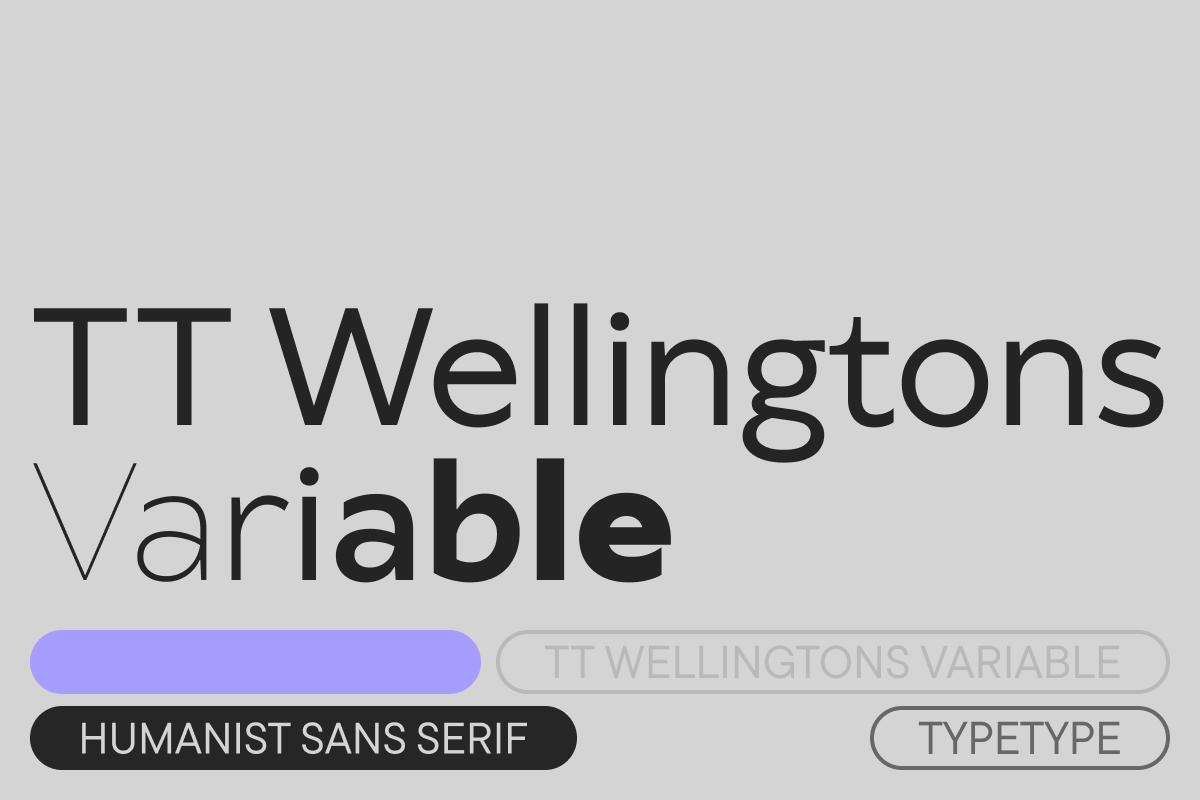
TT Wellingtons Variable
TT Wellingtons is a Humanist sans serif with forms closely connected to the movement of the broad nib. Soft letter lines of the updated typeface, a feature of English Humanist typefaces of the XX century, look relevant and lively in contemporary design projects. This is a modern font with an elegant and distinctive personality.